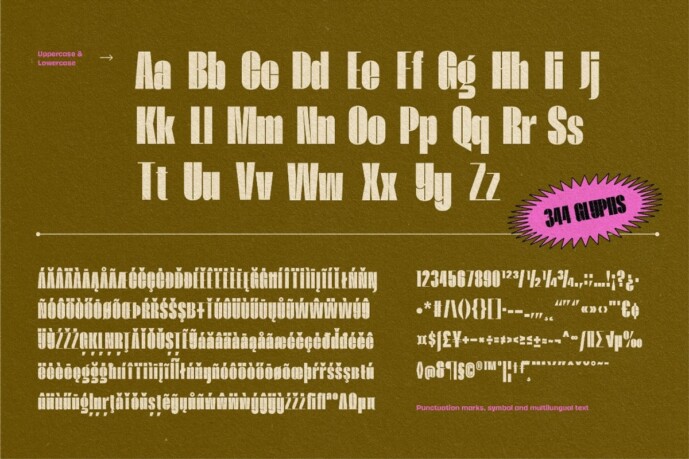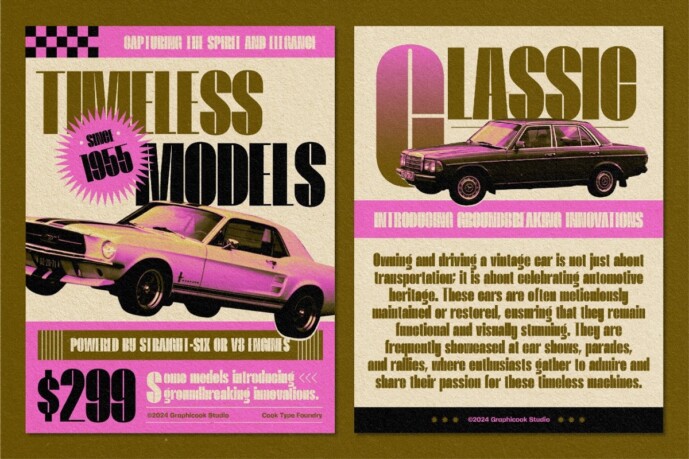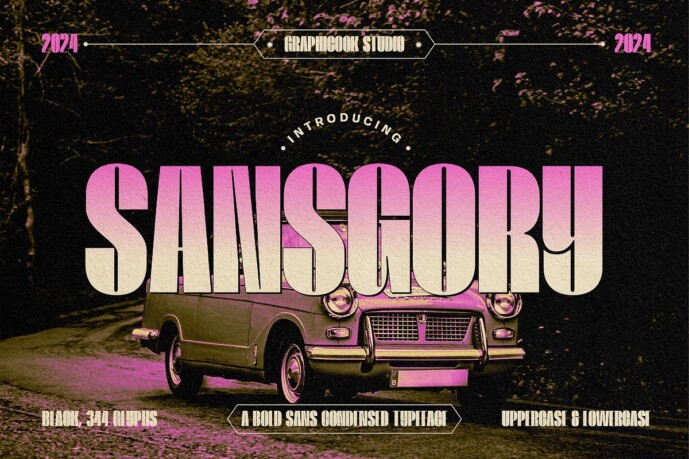
Sansgory Font
Designer: graphicook
Sansgory Font is a bold, condensed font that combines vintage charm with a modern touch. This font is suitable for headlines, magazines, and packaging with a vintage theme.
Sansgory is perfect for headlines, logotypes, magazines, packaging, quotes, movies, games, cover albums, book covers, and flyers, it’s a perfect solution for creating eye-catching designs that stand out in any context.